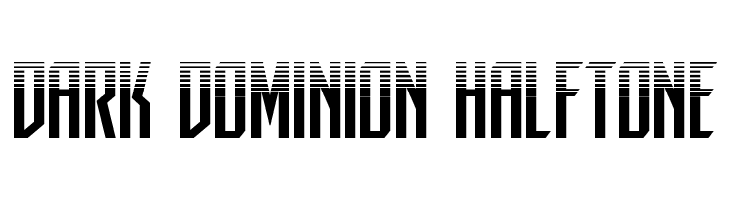
An elegant, flowing script font with graceful curves and ornate flourishes.
An elegant script font with flowing, cursive letterforms and a sophisticated style.
A bold, gothic blackletter font with intricate, angular designs.
A bold, hand-drawn font with a rough, textured appearance.
A bold, jagged font with a dynamic, graffiti-like style.
A rounded, hand-drawn sans-serif font with a friendly and informal style.
A futuristic, geometric font with interconnected, bold characters.
A modern, geometric font with sharp angles and a futuristic aesthetic.
A bold, italicized font with an expanded and dynamic style.
An ornate, decorative Blackletter-style font with intricate detailing.
设计师偏爱 bolyvina, Austina, stunegart, Garan Fox Demo and Mystery White,因为其造型干净、适用范围广—— 从品牌识别到落地页、海报都能胜任。